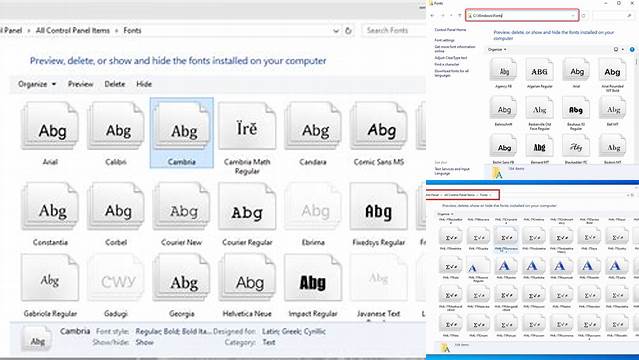
Find System Fonts Location On Windows 10: A Quick Guide
Knowing where your system fonts are located in Windows 10 can be super handy for various reasons, from troubleshooting display issues to customizing your creative projects. So, system fonts location on windows 10 is quite important. This guide will walk you through everything you need to know to find those fonts quickly and easily. Let's dive in!
Accessing the Default Fonts Folder in Windows 10
Finding the default fonts folder in Windows 10 is straightforward. You don't need to be a tech wizard to do it! The quickest way is through File Explorer. Open File Explorer (you can press Windows Key + E), and in the address bar, type C:\Windows\Fonts and hit Enter. Voilà ! You're in the fonts folder. Here, you'll see all the fonts that come pre-installed with Windows 10. These are the system fonts location on windows 10 uses for its interface, documents, and more. You can browse, preview, and even install new fonts from here. It’s a treasure trove for anyone interested in typography. Understanding how to access this folder gives you the power to manage your font collection effectively and troubleshoot any font-related issues that might pop up. So, go ahead, explore, and get familiar with your fonts!
Using the Settings App to View Installed Fonts
Another way to check out your fonts is through the Settings app. Click on the Start Menu and then click on the Settings icon (it looks like a gear). In the Settings app, go to "Personalization" and then click on "Fonts" in the left sidebar. Here, you'll see a list of all the fonts installed on your system. This method is great because it gives you a visual preview of each font, making it easier to find the one you're looking for. You can click on a font to see all its variations (like bold, italic, etc.) and get more details about it. This is super useful if you're trying to decide which font to use for a project or if you just want to see what fonts you have available. Plus, the Settings app provides easy access to font settings, like adjusting the font size for different parts of Windows. So, whether you're a designer or just someone who likes to customize their computer, the Settings app is a handy tool for managing your system fonts location on windows 10.
Troubleshooting Font-Related Issues
Sometimes, you might run into font-related issues, such as fonts not displaying correctly or fonts being missing from your applications. One common cause of these issues is font corruption. If a font file gets damaged, it can cause problems with how the font is displayed. To fix this, you can try reinstalling the font. Another common issue is font conflicts. If you have multiple versions of the same font installed, they can conflict with each other and cause problems. To fix this, you can try uninstalling the older version of the font. If you're still having problems, you can try clearing the font cache. The font cache is a temporary storage area that Windows uses to store font data. Clearing the font cache can sometimes resolve font-related issues. To clear the font cache, you'll need to use a third-party tool or manually delete the font cache files. Be careful when clearing the font cache, as it can sometimes cause problems with Windows. If you're not comfortable doing this yourself, you can ask a tech-savvy friend or take your computer to a repair shop. Addressing these issues keeps your system fonts location on windows 10 running smoothly.
Changing Default System Fonts (Advanced)
Changing the default system fonts is an advanced task that should only be attempted by experienced users. Windows uses specific fonts for its interface elements, such as menus, dialog boxes, and window titles. Changing these fonts can affect the appearance and usability of Windows. To change the default system fonts, you'll need to use the Registry Editor. Be very careful when using the Registry Editor, as making incorrect changes can cause problems with Windows. Before making any changes, it's a good idea to back up your registry so you can restore it if something goes wrong. Once you've backed up your registry, you can use the Registry Editor to change the default system fonts. The specific registry keys that you need to modify will depend on which font you want to change. You can find instructions on how to do this online, but be sure to follow the instructions carefully. Changing the system fonts location on windows 10 via registry is not recommended for novice users.
Using Fonts in Design Software (Photoshop, Illustrator, etc.)
If you're a designer, you'll be using fonts in design software like Photoshop and Illustrator. These programs allow you to choose from a wide variety of fonts and use them in your designs. When choosing fonts for your designs, it's important to consider the overall look and feel you're trying to achieve. Different fonts have different personalities, so choose fonts that match the tone of your design. For example, a formal design might call for a serif font, while a casual design might call for a sans-serif font. Also, be sure to use fonts that are legible and easy to read. A beautiful font is useless if people can't read it. In addition to choosing the right fonts, you'll also want to pay attention to the typography. Typography is the art of arranging type in a visually appealing way. Good typography can make your designs look more professional and polished. Understanding how design software interacts with the system fonts location on windows 10 is key for effective design.
Best Practices for Managing Your Font Collection
Managing your font collection can be a daunting task, especially if you have a lot of fonts. Here are some best practices to help you keep your font collection organized: 1. Use a font management tool. There are many font management tools available that can help you organize your fonts, activate and deactivate fonts, and resolve font conflicts. 2. Organize your fonts into folders. Create folders for different types of fonts, such as serif fonts, sans-serif fonts, and script fonts. 3. Use descriptive names for your fonts. When you download a font, rename it to something descriptive so you can easily identify it later. 4. Delete fonts that you don't need. If you have fonts that you're not using, delete them to free up space and reduce clutter. 5. Back up your font collection. Create a backup of your font collection so you can restore it if something goes wrong. Keeping the system fonts location on windows 10 tidy helps with overall system performance.
The Future of Fonts: Variable Fonts and Beyond
The future of fonts is exciting, with new technologies like variable fonts pushing the boundaries of typography. Variable fonts allow you to adjust multiple aspects of a font, such as weight, width, and slant, using a single font file. This reduces file sizes and gives you more control over your typography. As technology continues to evolve, we can expect to see even more innovative and exciting developments in the world of fonts. Staying informed about these trends keeps you at the forefront of design. It's a natural progression from understanding the basic system fonts location on windows 10.